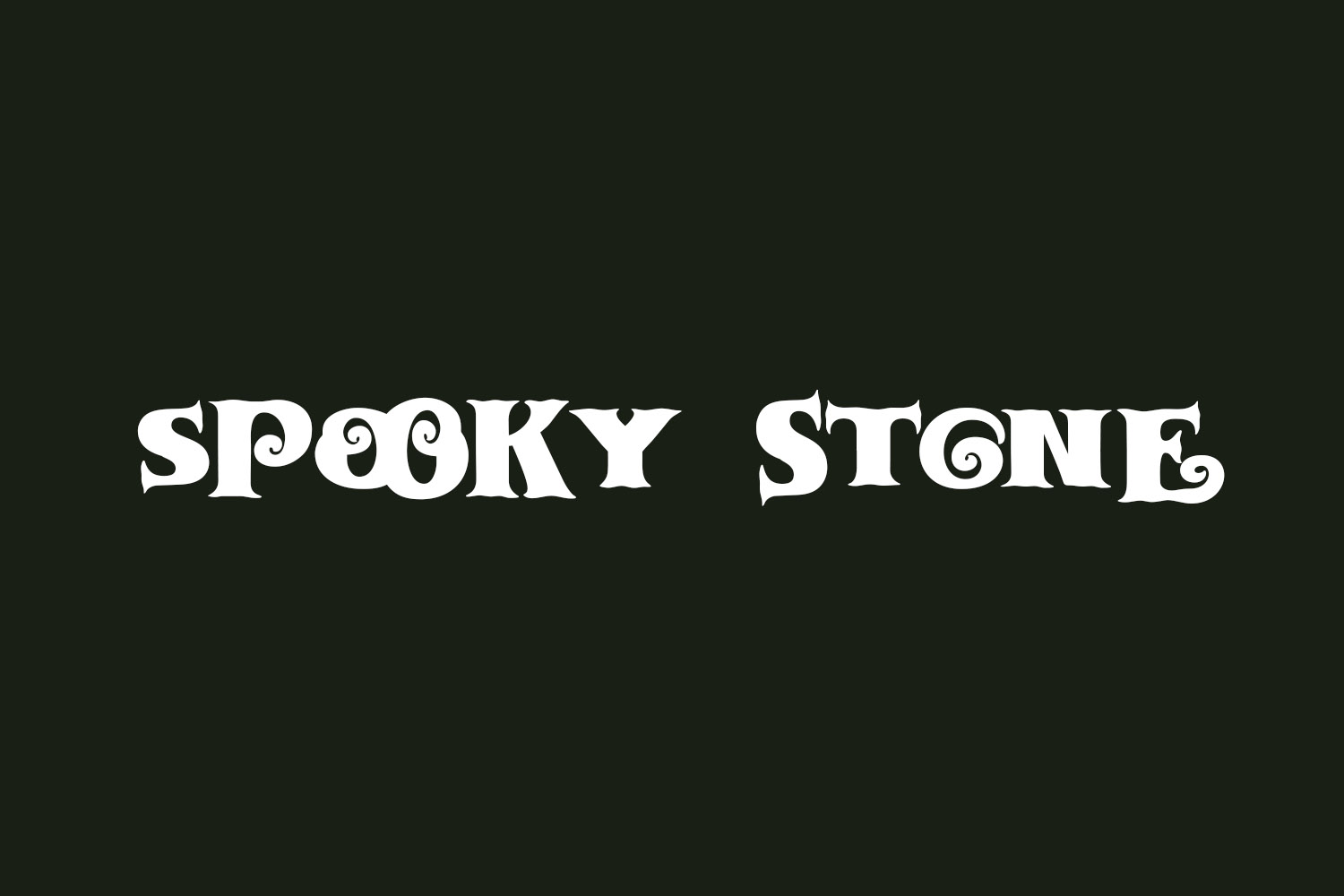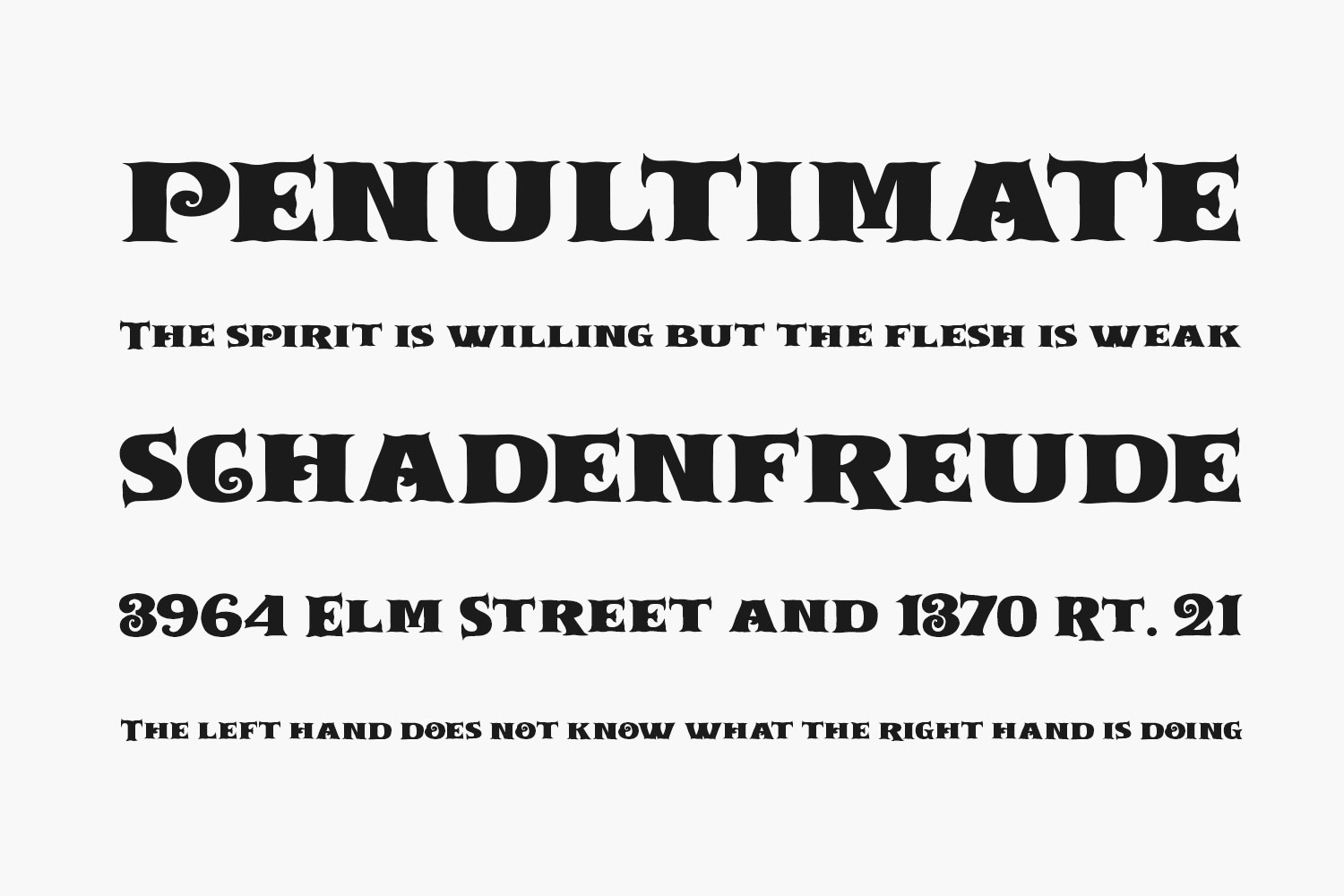
Spooky Stone Free Font is a delightfully eerie font that embraces a chilling horror theme. Meticulously crafted to earn its place as your top choice, this font has the power to elevate all your imaginative concepts to their peak potential. Get ready to spook up your designs. Spooky Stone Free Font is free for personal use only. Please purchase the full version for commercial use.
Designed by Lettersweet Studio